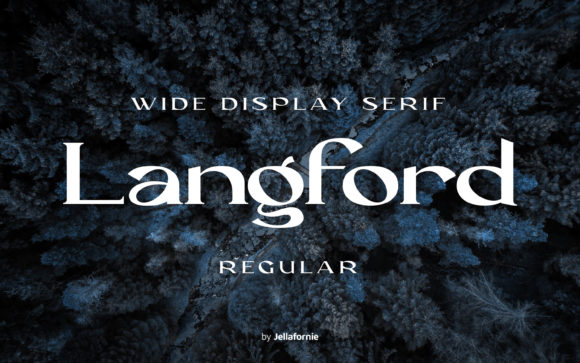
Journey through the annals of time with Langford Font, a serif font that exudes a vintage charm, whispering tales of nostalgia and heritage. Stroke by stroke, Langford captures the essence of authenticity, lending an air of sophistication to your creative endeavors. Whether you seek to craft elegant invitations, design captivating logos, or add a touch of timeless allure to your branding, Langford stands as your steadfast companion.
With its graceful curves and refined terminals, Langford effortlessly elevates your words, transforming them into visual masterpieces. Its carefully crafted serifs add a touch of elegance, reminiscent of bygone eras, while its sturdy structure ensures readability and clarity. As your fingers dance across the keyboard, Langford becomes your trusted ally, translating your thoughts and ideas into a symphony of visual artistry.
Langford's versatility knows no bounds, adapting seamlessly to a myriad of creative projects. From wedding invitations that evoke a sense of timeless romance to vintage-inspired posters that transport viewers to another era, Langford effortlessly captures the essence of your message, leaving an indelible mark on the hearts and minds of your audience. Unleash your creativity and let Langford guide you on a journey through time, where the past and present harmoniously converge.
Whether you're a seasoned designer or just starting your creative journey, Langford is your ultimate font companion. Its intuitive design and user-friendly interface make it accessible to all, allowing you to effortlessly transform your ideas into tangible works of art. Join the ranks of creative visionaries who have embraced Langford's timeless appeal, and elevate your projects to new heights of sophistication and charm.
With Langford at your fingertips, you hold the power to unlock a world of creative possibilities. Its versatility extends beyond the digital realm, inviting you to explore the boundless world of physical crafting. Create customized greeting cards that carry the warmth of your heartfelt messages, design unique labels that add a touch of charm to your handmade products, or even transform ordinary pieces of furniture into stunning vintage masterpieces. Langford is your gateway to a world where creativity flourishes and imagination reigns supreme.
Seize this opportunity to embark on a creative odyssey with Langford Font. Its vintage charm and timeless elegance will captivate your audience, leaving them spellbound by the beauty of your creations. As you witness the transformative power of Langford, you'll discover a newfound appreciation for the art of typography, realizing that fonts are not mere tools, but rather instruments of expression that have the power to evoke emotions, convey messages, and create lasting impressions.